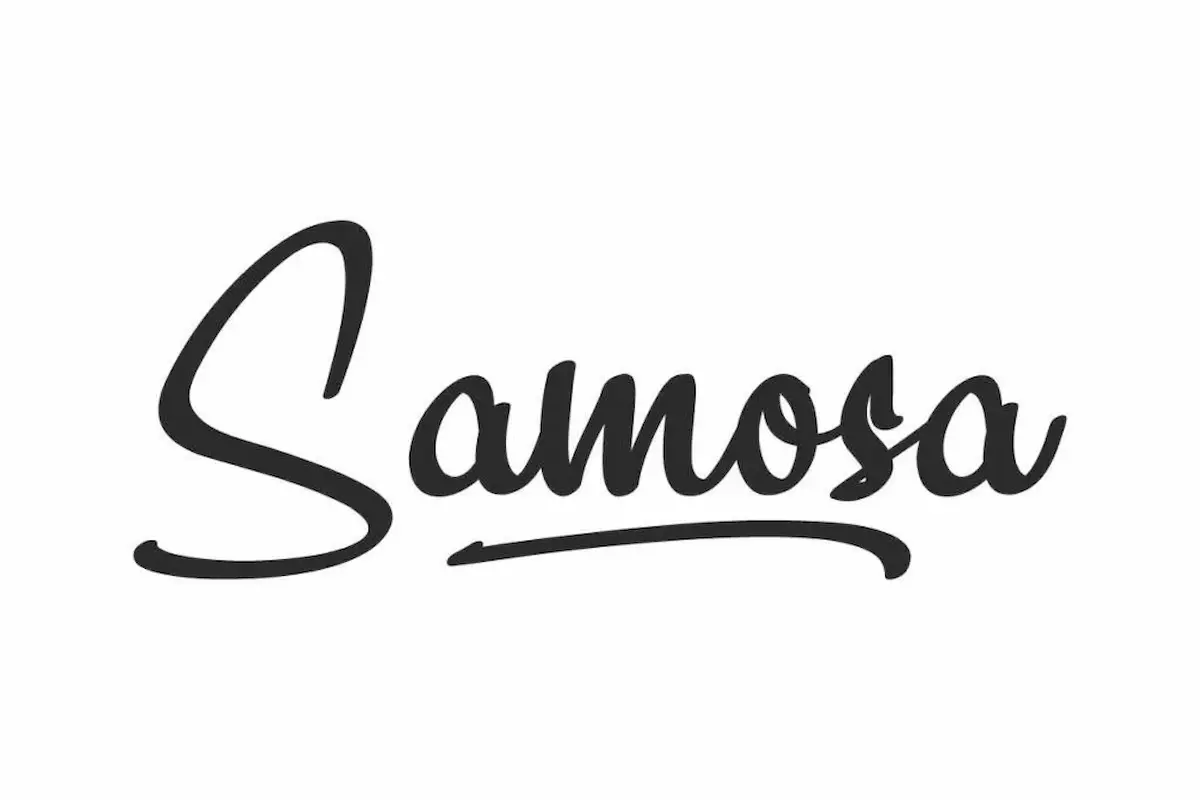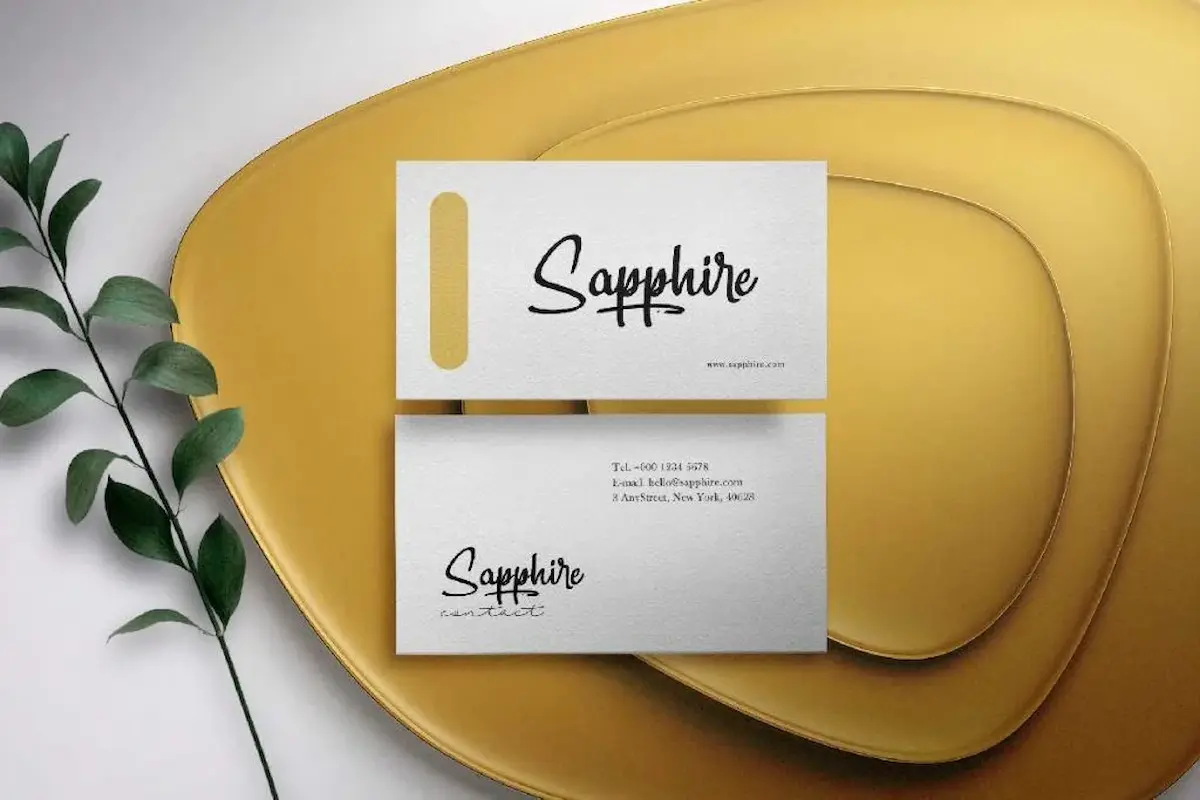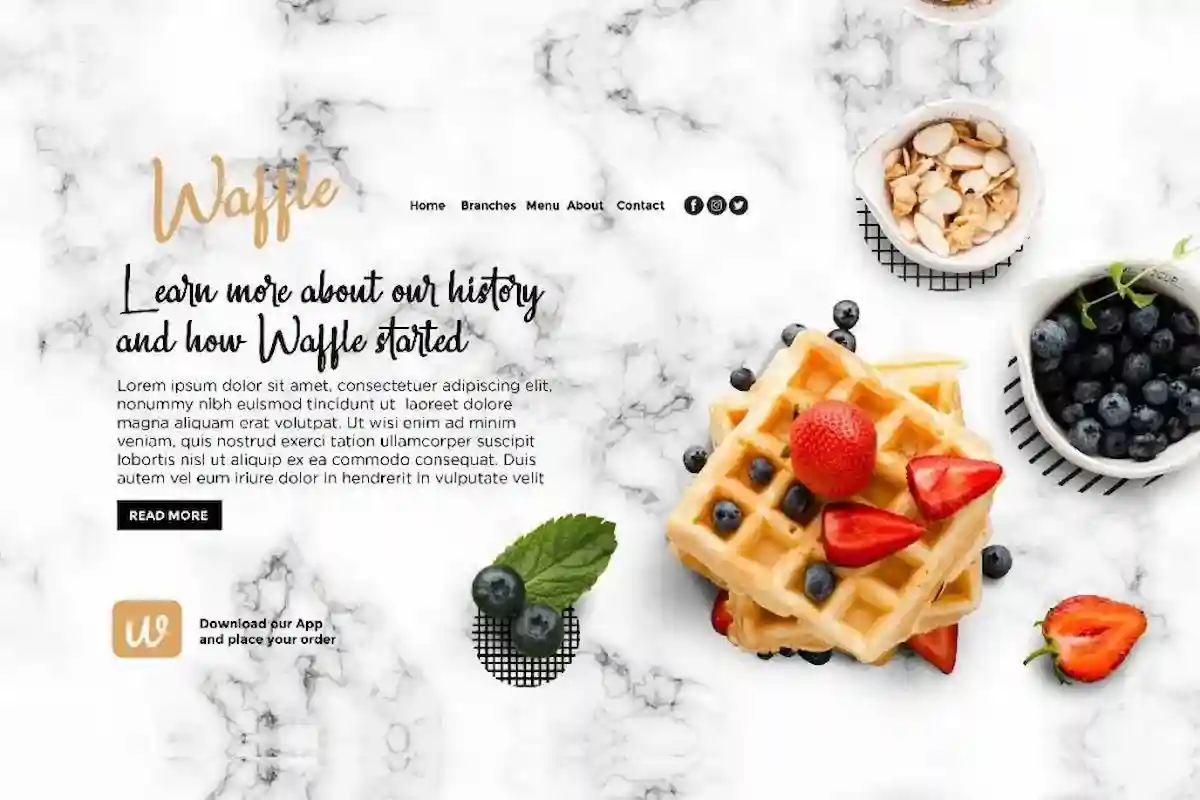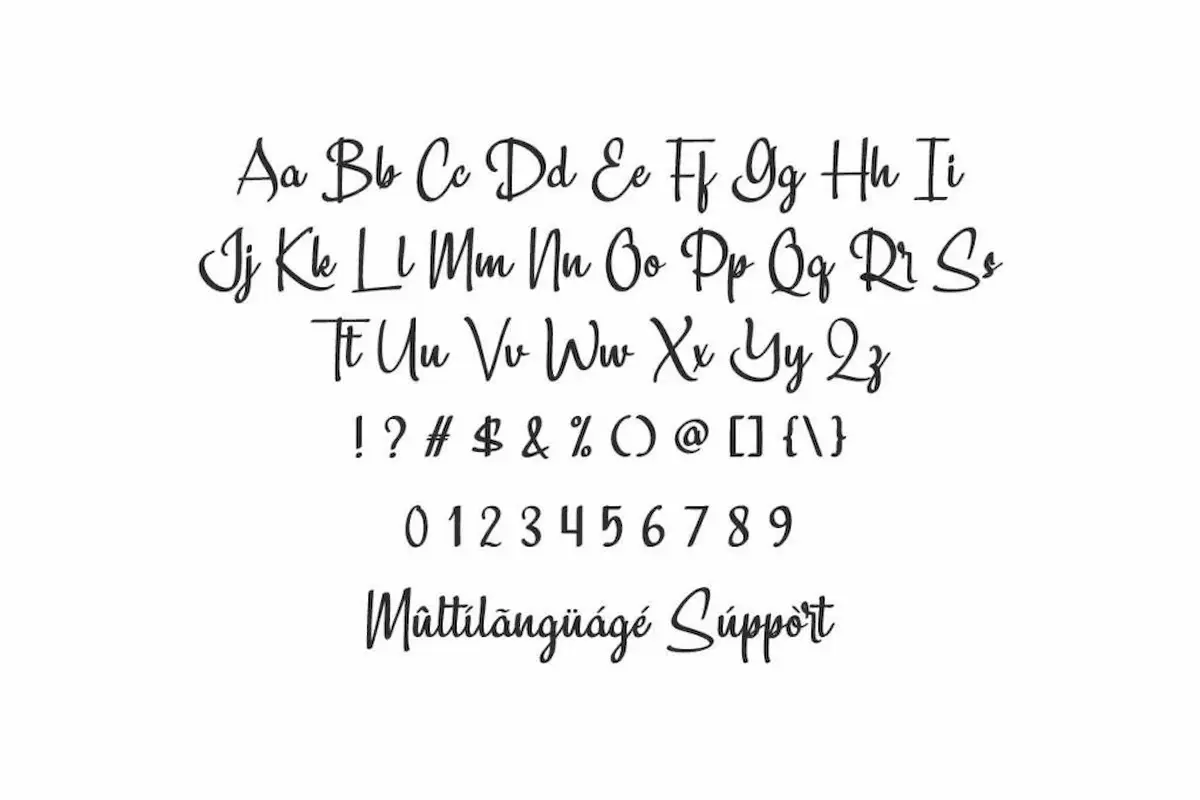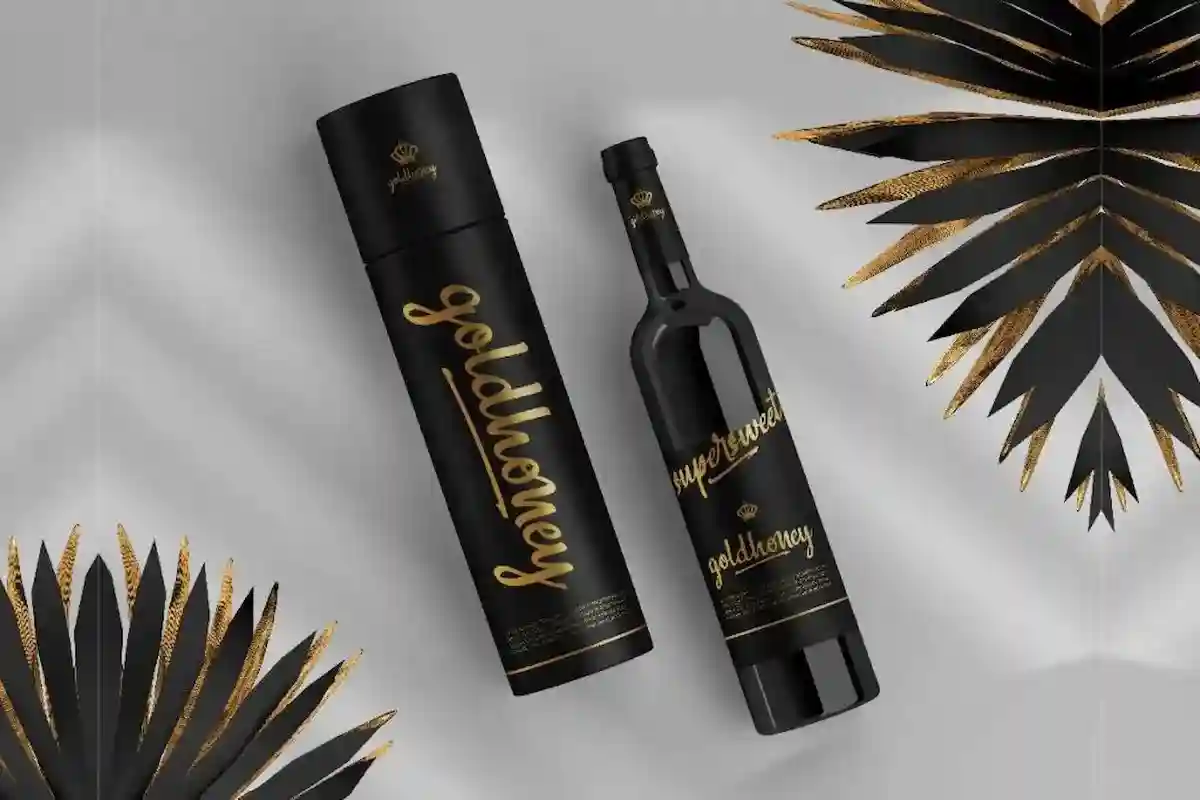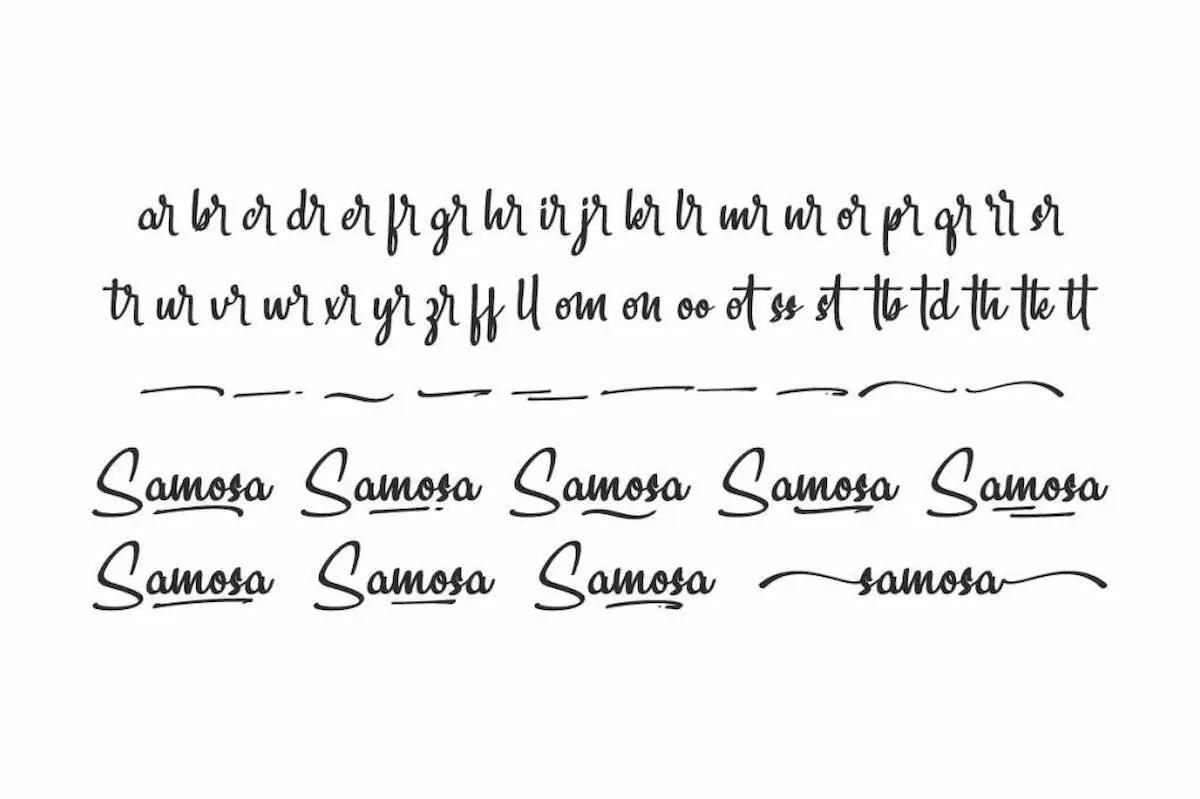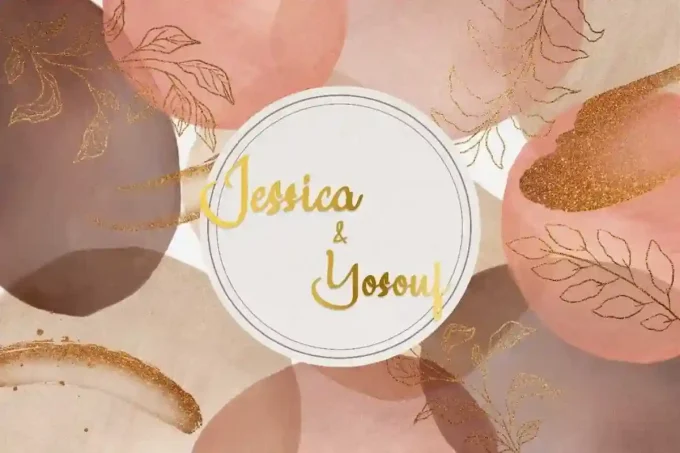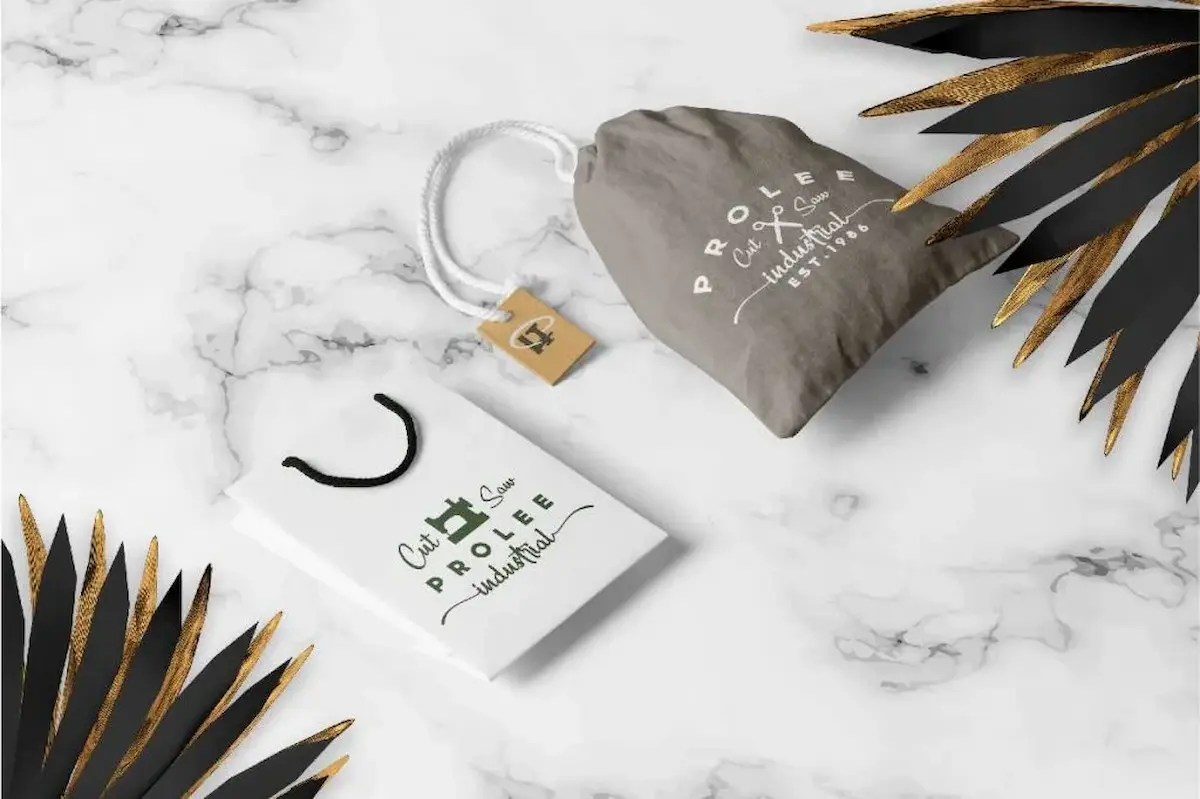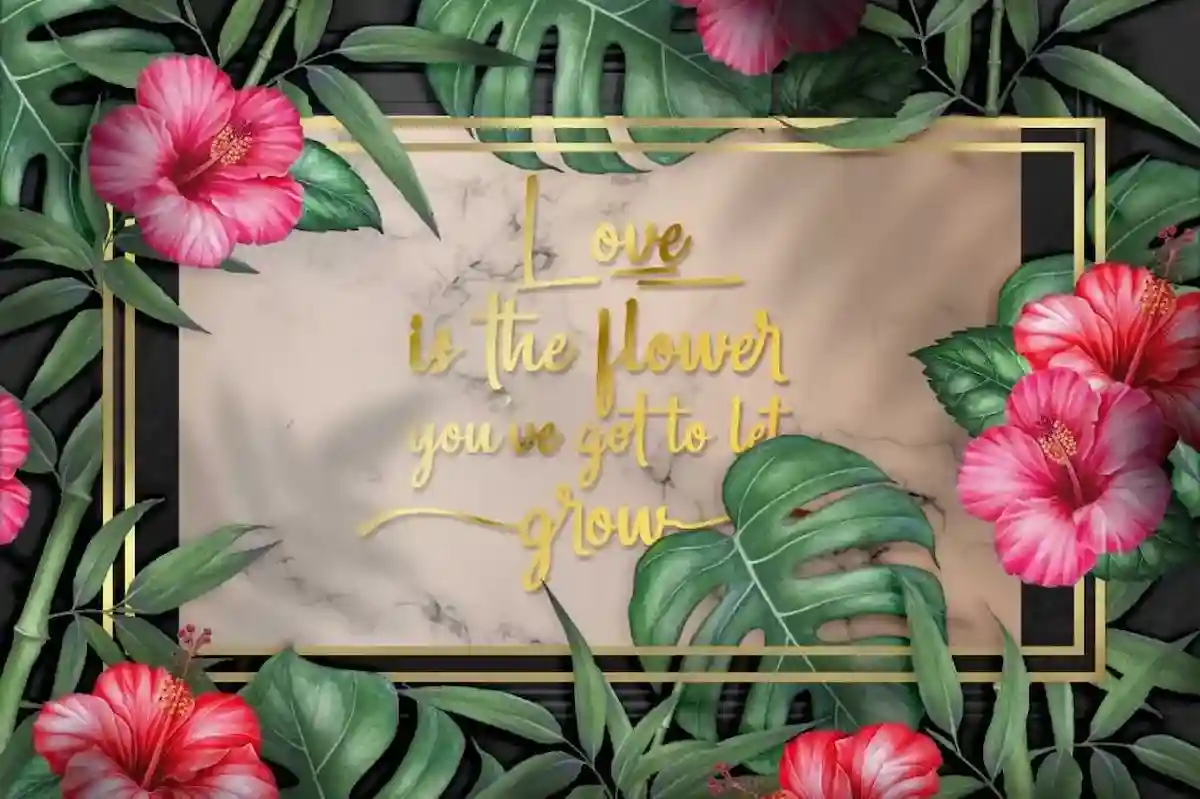
Samosa Font
Samosa Font is a handwriting with brush calligraphy font by NihStudio. Samosa Font will be great for branding, wedding, professional, video, invitation etc
Samosa Font is a beautiful handwriting calligraphy font created by NihStudio, designed with care and passion by our talented font designers Widi and Suci in Indonesia, 2021. It offers an elegant and artistic script style, perfect for projects that require a touch of sophistication and personal charm. Please note that the test version provided here is a demo file, so some special characters may not appear.
Samosa Font is perfect for branding, logos, stationery, business cards, signage, flyers, brochures, invitations, and more (some uses may require an extended license). The style blends elegant, handmade, vintage, stylish, and classic brush calligraphy, making it versatile for both modern and traditional designs.
It pairs beautifully with wedding invitations, event posters, real estate branding, architecture firms, law offices, florists, gardening businesses, makeup artists, travel agencies, hotels, and musicians. The handwritten curves give a personal and warm touch, while its refined strokes maintain a professional and timeless appearance.
Whether you are designing for print or digital media, Samosa Font will bring elegance and authenticity to your work. Its flowing strokes, artistic details, and versatile style make it a valuable addition to any designer’s toolkit.Please do contact us if you have any question or query.